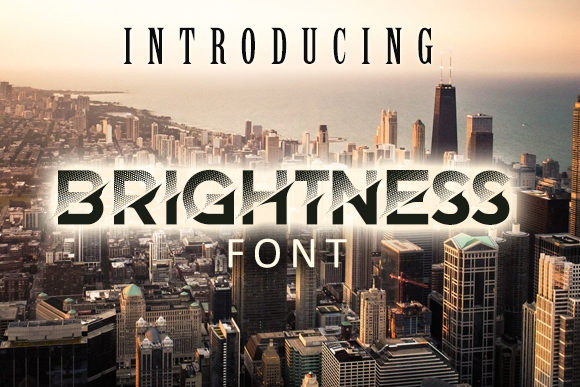
The Brightness Font: A Game-Changer for Your Designs
Have you ever been in the middle of a design project, and suddenly, you just can’t seem to find the right font? I know I have! 😩 It was a typical Wednesday afternoon when I was working on a flyer for a local event, and I was determined to make it stand out. That’s when I stumbled upon the Brightness font, and let me tell you, it was love at first sight! 💕
What is Brightness Font?
Brightness is an awesome gradient decorative font that will give a strong personality to your designs! It’s perfect for flyers, posters, social media posts, and much more. This font is not just any ordinary font; it’s a statement piece that will elevate your designs to the next level.
• ✨ Unique gradient effect that adds depth to any design
• ✅ Highly versatile and works well for various design projects
• 💥 Attention-grabbing and perfect for making a statement
• 🎉 Easy to use and pairs well with other fonts
While Brightness is an amazing font, there are a few things to keep in mind: 🤔
• ⚠️ May not work well for body text or long paragraphs
• ⚠️ Limited to larger font sizes to maintain readability
The Designer Inspiration Behind Brightness
The Brightness font was inspired by the beauty of sunrise and sunset. The designer wanted to capture the vibrant colors and gradient effects of these natural phenomena and bring them to the world of typography. 🌅
Q: Is Brightness suitable for body text?
A: While Brightness is a beautiful font, it’s not recommended for body text or long paragraphs. It’s best used for headlines, titles, and short text elements.